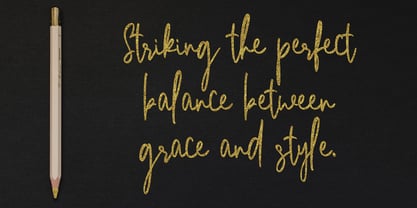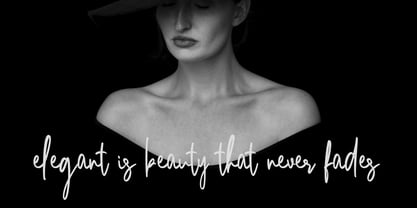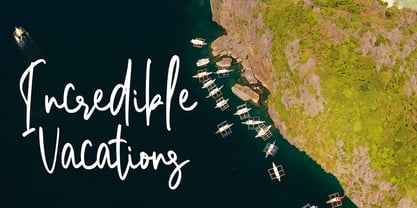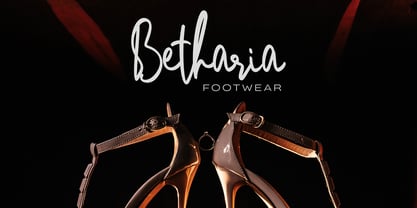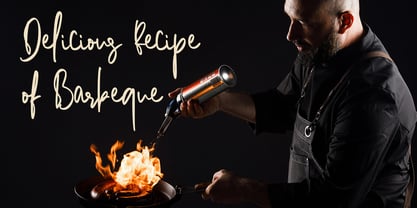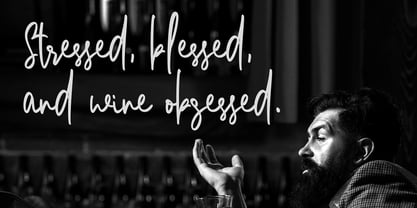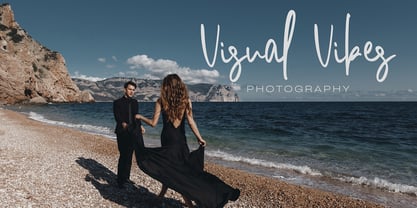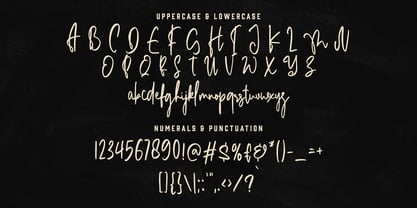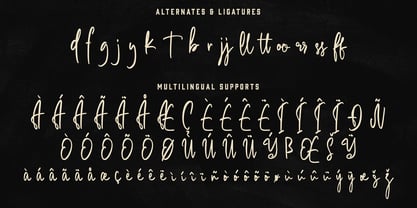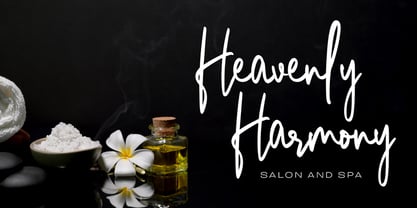
Bonehead Script
by Geelator Studio
The Bonehead Script Font Family was designed by Gilang Tito Dharmawan and published by Geelator Studio. Bonehead Script contains 1 styles. More about this family
Bonehead Script is a stylish and versatile script font, perfect for adding a personal touch to your design projects. With its flowing and elegant style, this font is ideal for invitations, greeting cards, logos, branding, quotes, and web design. Bonehead Script will give an elegant and classy impression to each of your work.
deal for both digital and print media, Bonehead Script is a powerful tool for a wide variety of purposes. Use it to craft elegant and unforgettable wedding invitations or greeting cards that truly resonate with your audience. Give your logos and branding a touch of sophistication that stands out in a crowded market. It's also the perfect choice for creating captivating quotes and stunning social media graphics that demand attention.